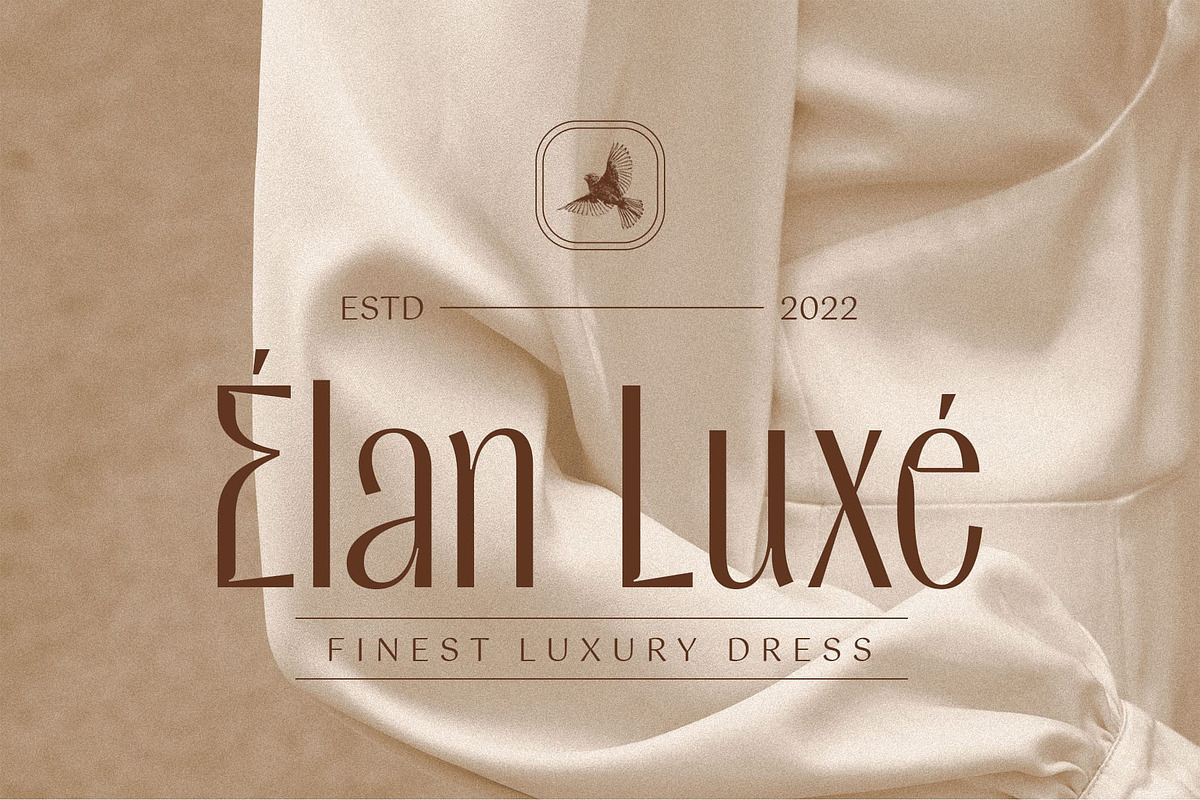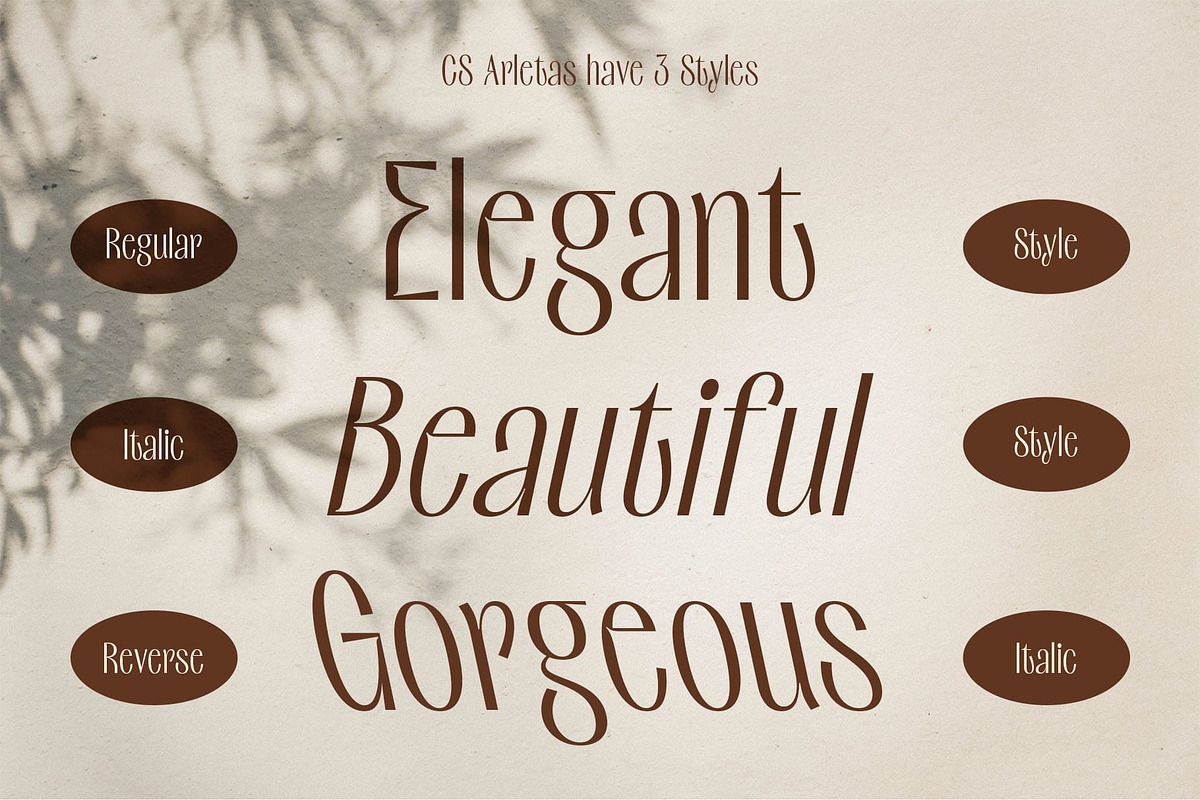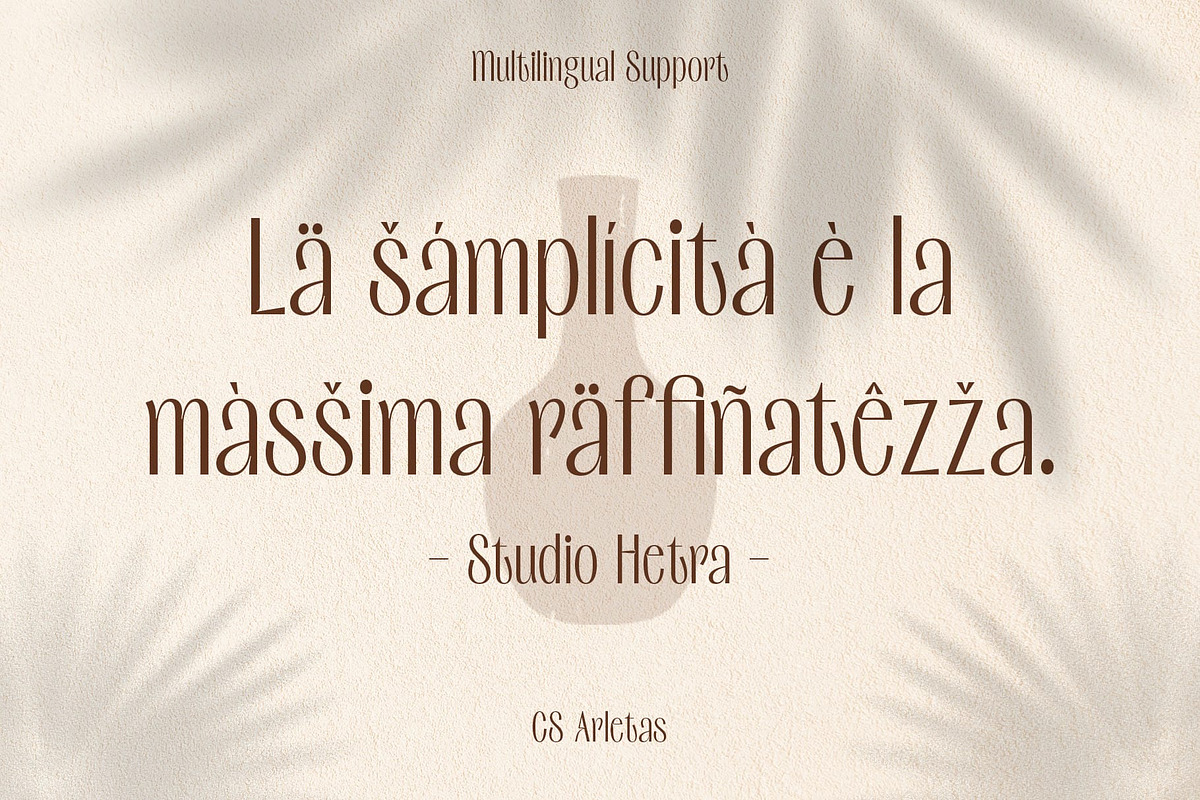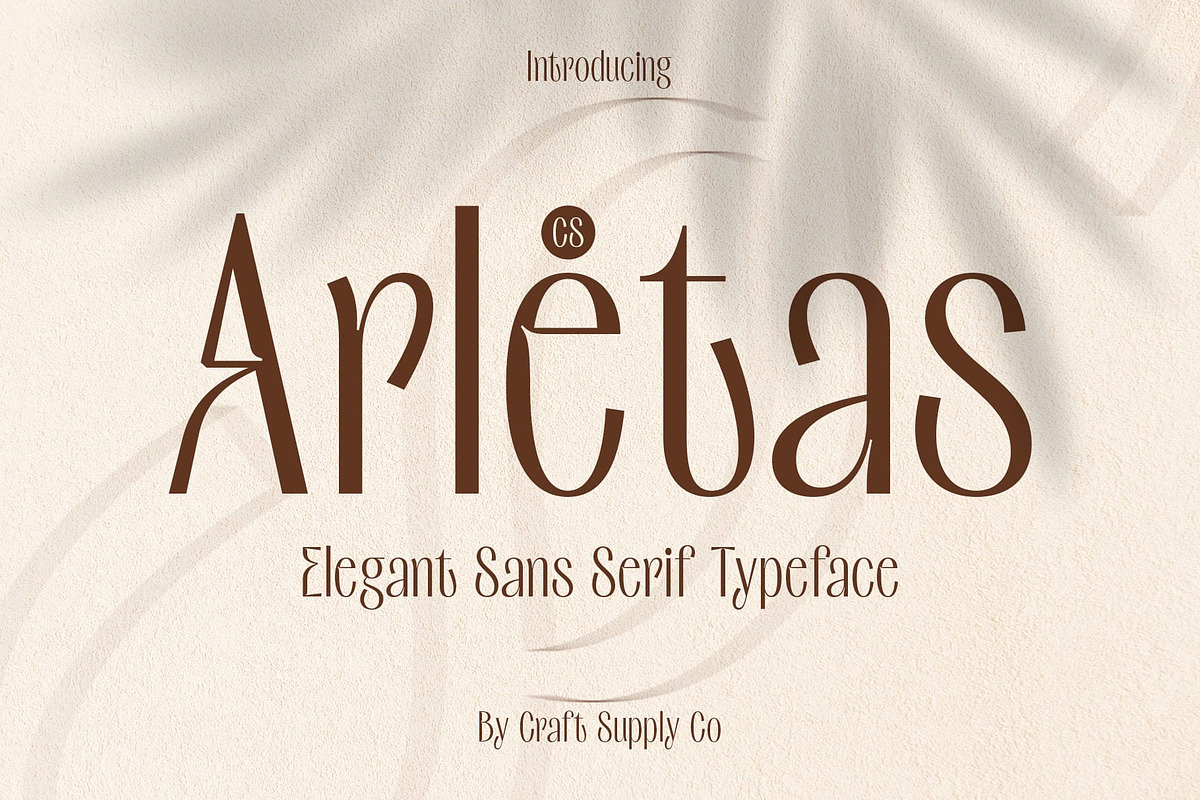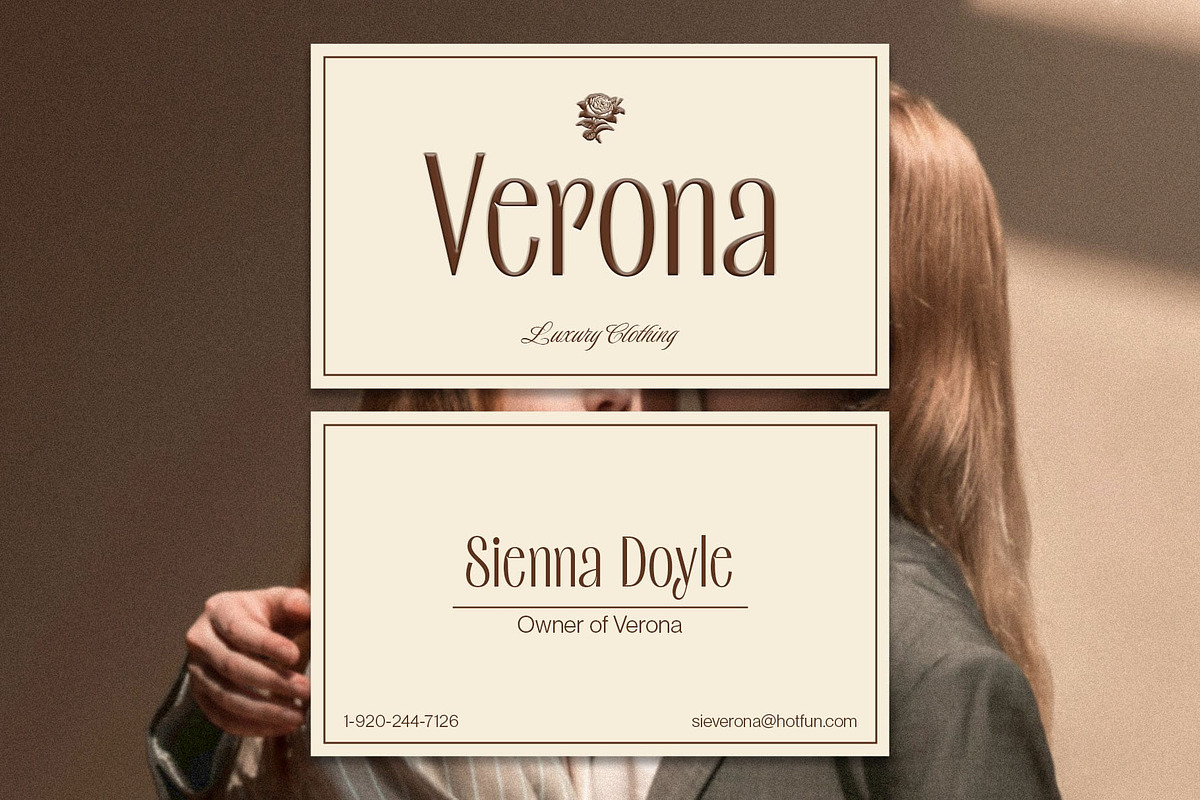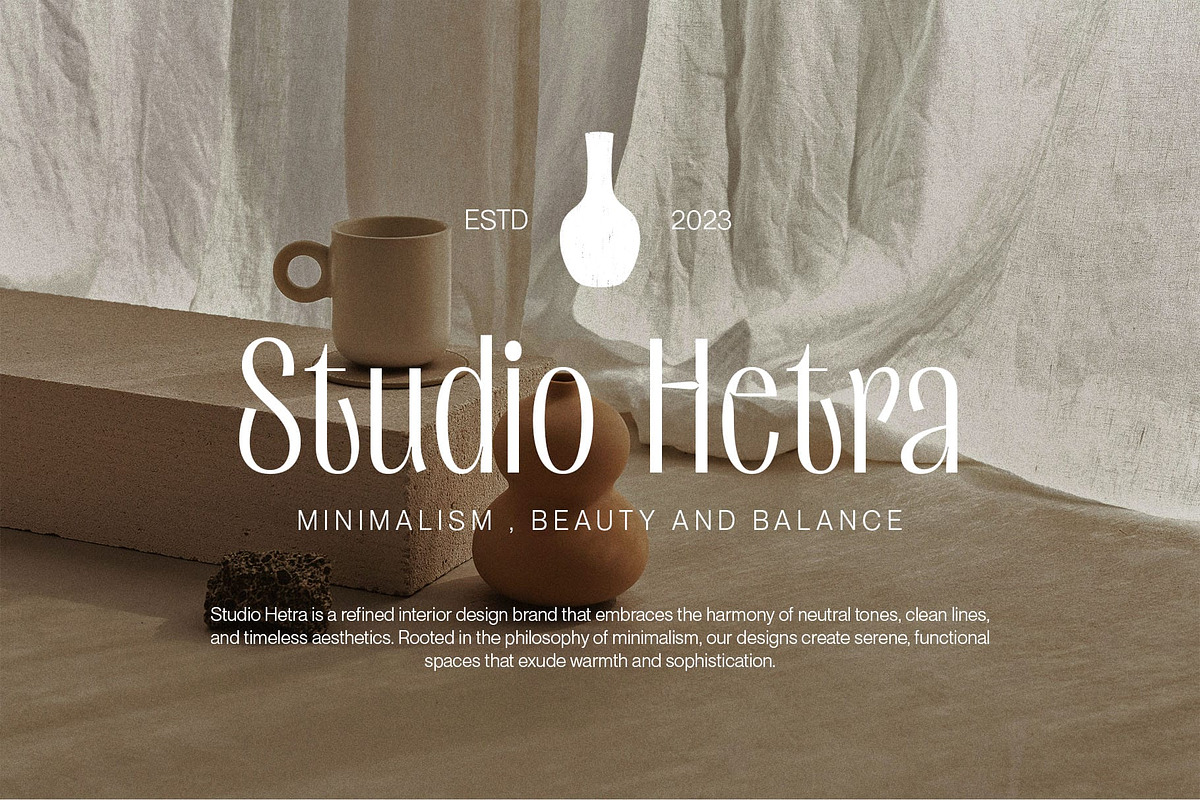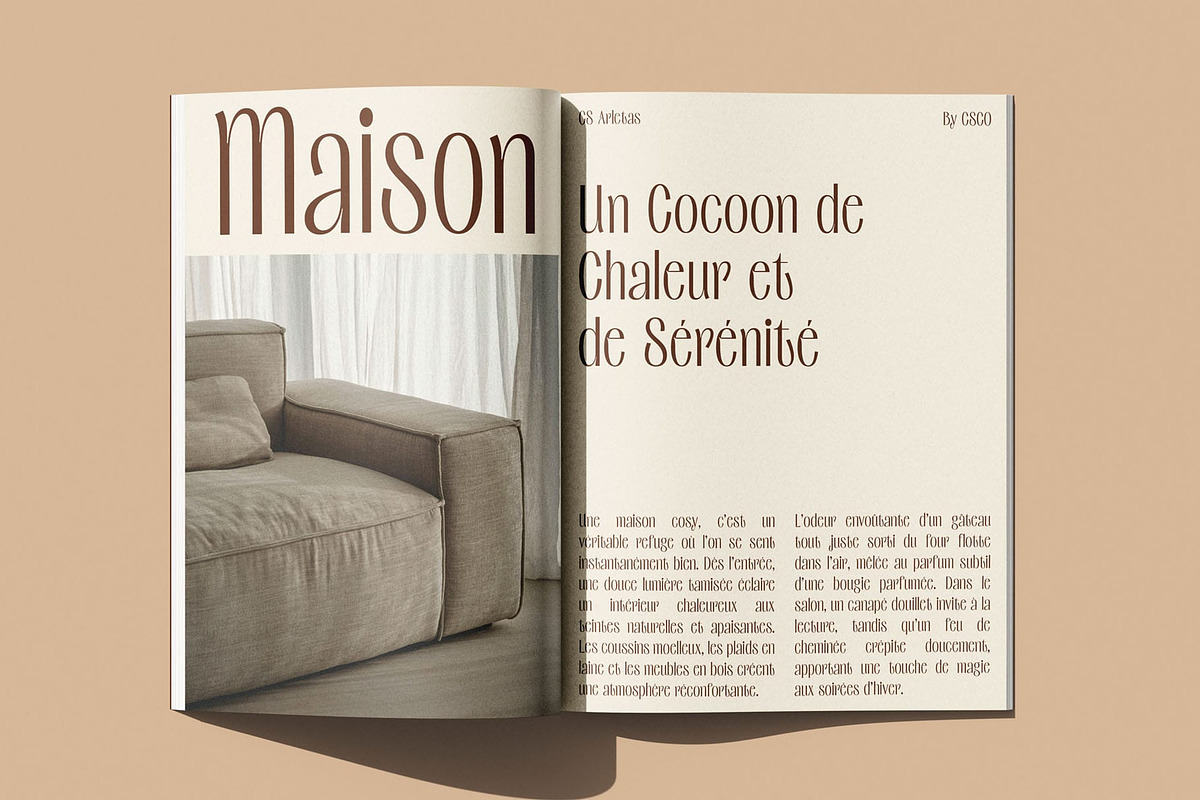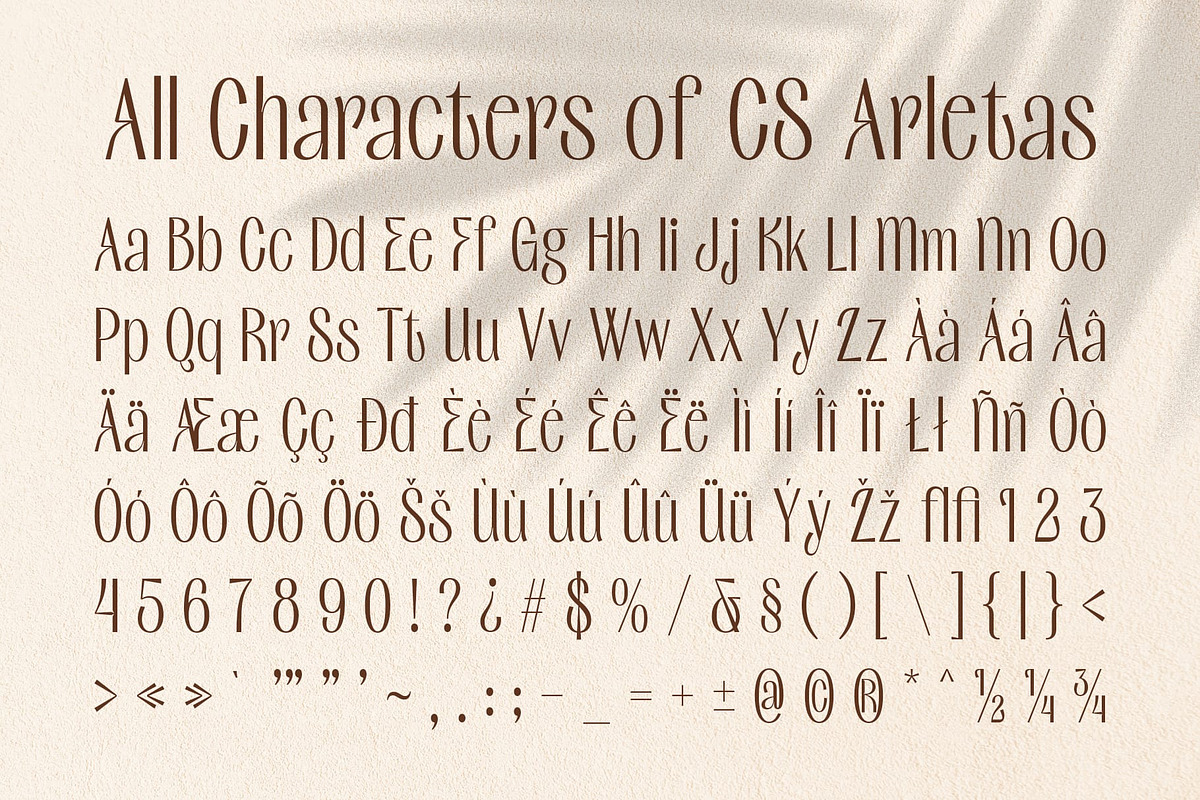
CS Arletas – Condensed Font
CS Arletas – Condensed Font: Sleek, Modern, and Sophisticated
Refined Simplicity in a Compact Design CS Arletas is a modern sans-serif font with a condensed and elegant form, designed to maximize space while maintaining a clean and stylish appearance. Its narrow yet well-balanced structure ensures readability without sacrificing aesthetic appeal, making it a perfect choice for sleek, professional designs. The condensed style allows for a strong presence in both digital and print media, making it an excellent option for headlines, titles, and branding.
Minimalist Yet Impactful With its sharp lines and smooth curves, CS Arletas delivers a professional and efficient impression. The font’s geometric precision and well-crafted letterforms enhance its versatility, making it suitable for branding, editorial layouts, websites, and marketing materials where space efficiency and elegance are key. The combination of its compact yet stylish letterforms allows designers to create bold and modern visuals without overwhelming the layout.
Perfect for Modern and Professional Projects CS Arletas is a go-to font for sophisticated and minimalist designs. Whether used in high-end branding, sleek advertisements, or editorial layouts, its streamlined yet captivating appearance ensures a refined and polished look. The balance between modern aesthetics and practical functionality makes it an excellent choice for designers looking to create clean, contemporary, and visually striking compositions.
- CS Arletas Regular
- CS Arletas Italic
- CS Arletas Reverse Italic